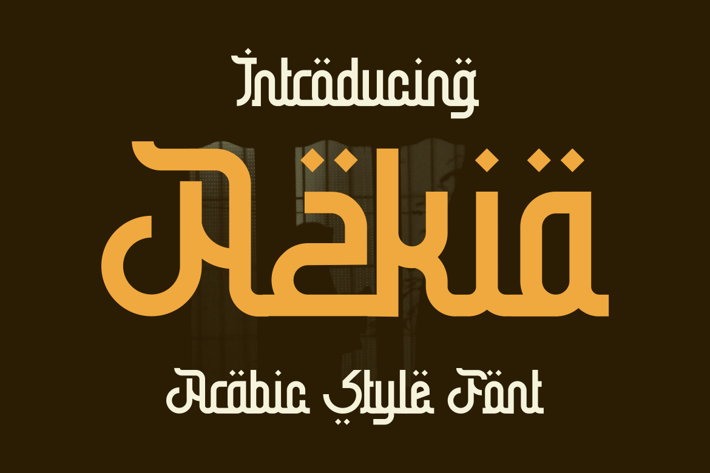
Azkia Font
Introducing our new product Azkia Font - Modern Font
Azkia Font - Modern Font is a bold and authentic display font. The font is suitable for any branding project like t-shirt printing, Product, and many more. outstanding in a wide range of contexts.